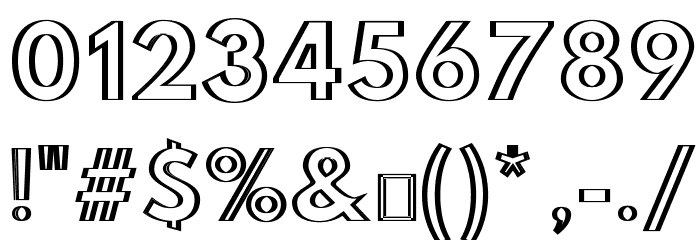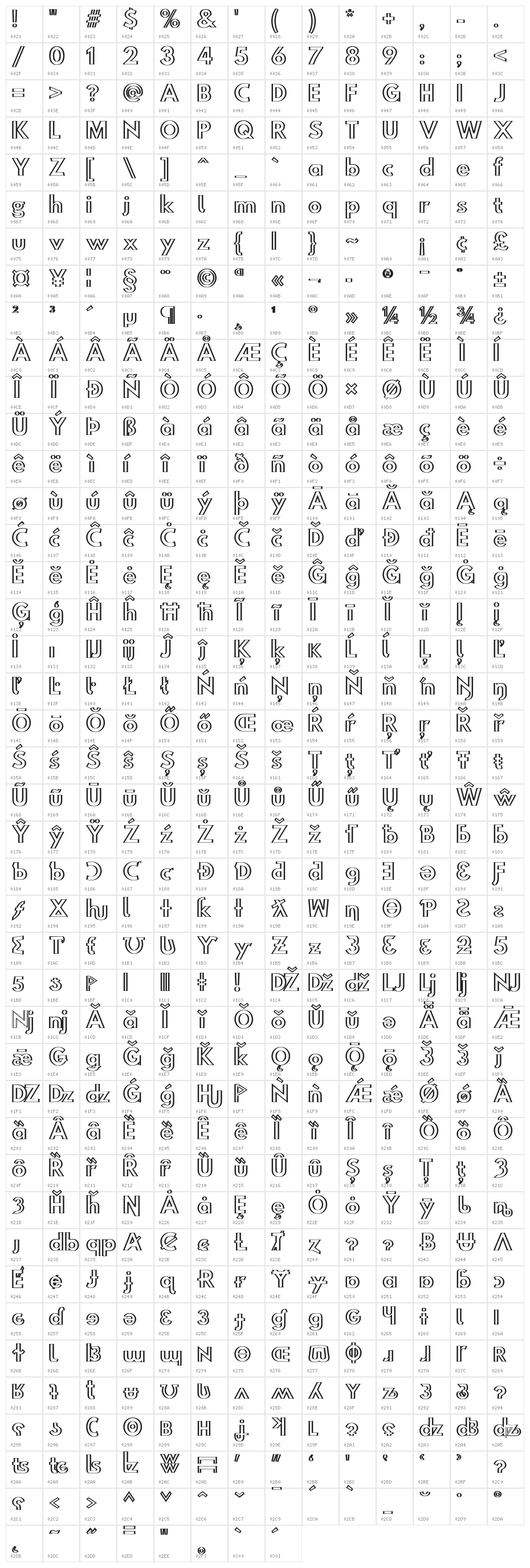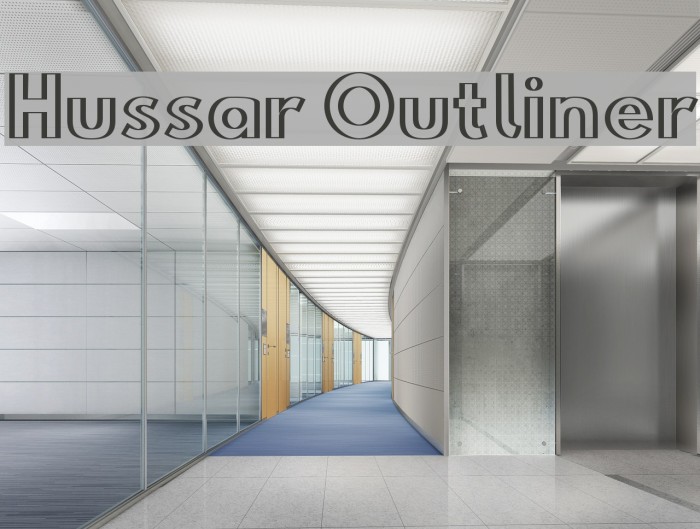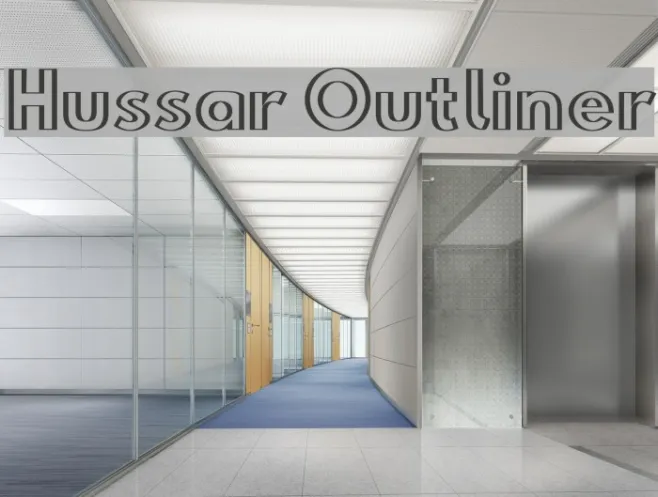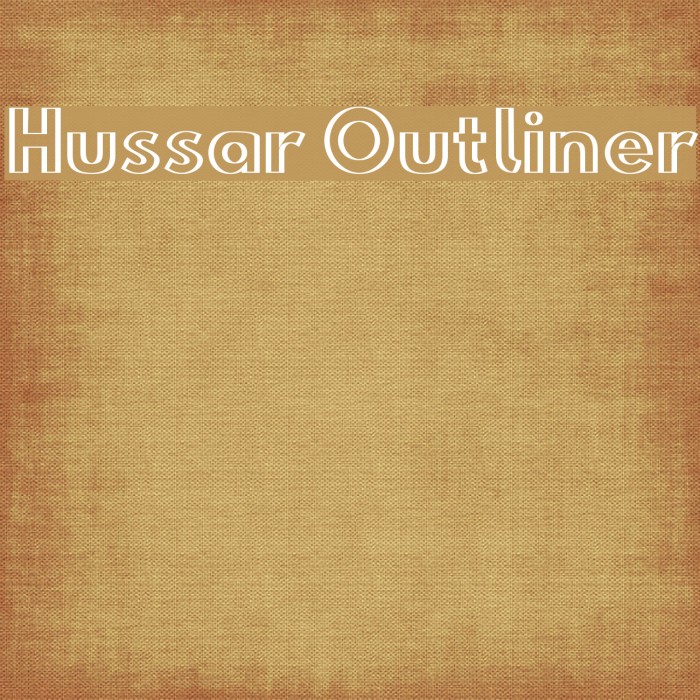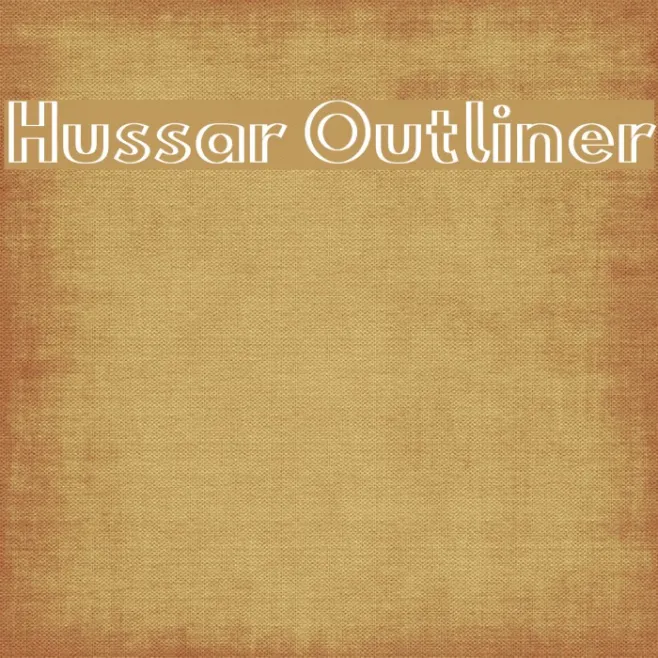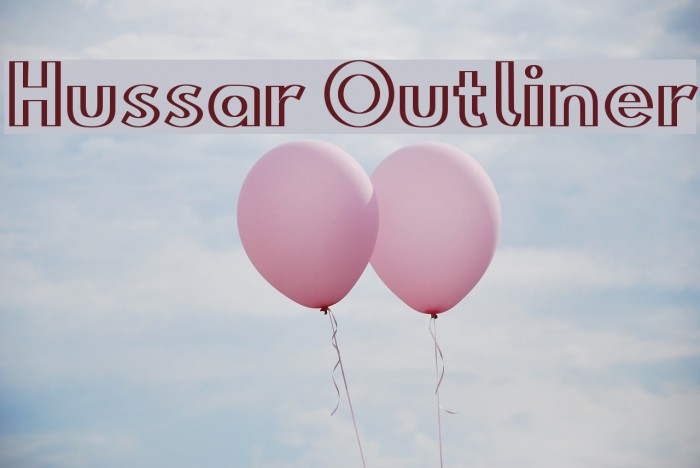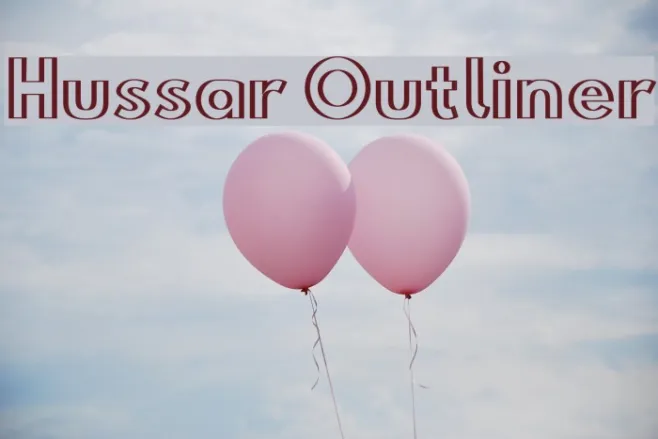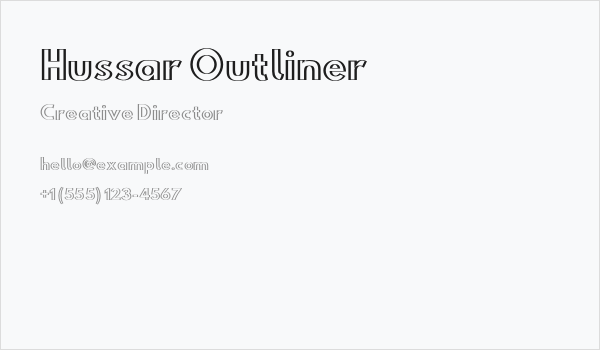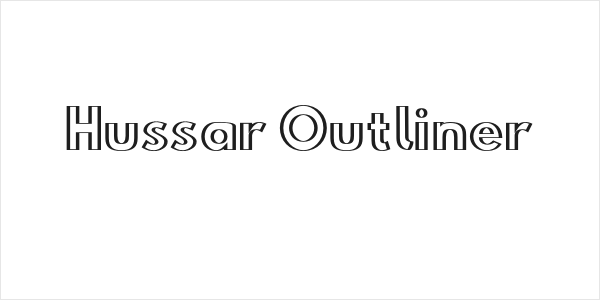
Hussar Outliner Font
Hussar Outliner Description
This font features a distinctive outline style, giving it a bold and eye-catching appearance. The characters are designed with clean lines and a geometric structure, providing a modern and sophisticated look. The uppercase and lowercase letters maintain a consistent style, with a slight variation in the stroke width that adds depth and dimension. The numerals and special characters are crafted to match the overall aesthetic, ensuring a cohesive and harmonious design. This font is ideal for projects that require a strong visual impact, such as headlines, posters, and branding materials.
| Proposed Projects | Ideal for headlines, posters, branding, and any project needing a strong visual impact. |